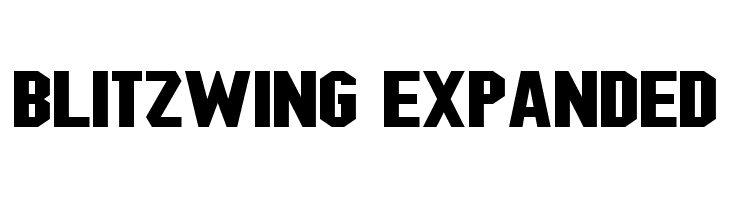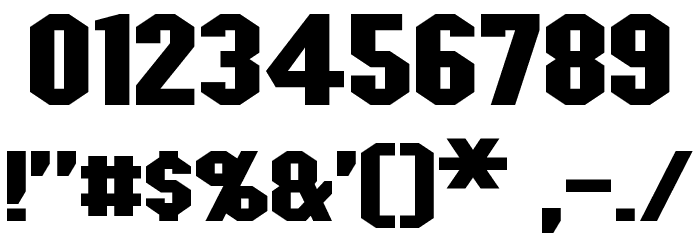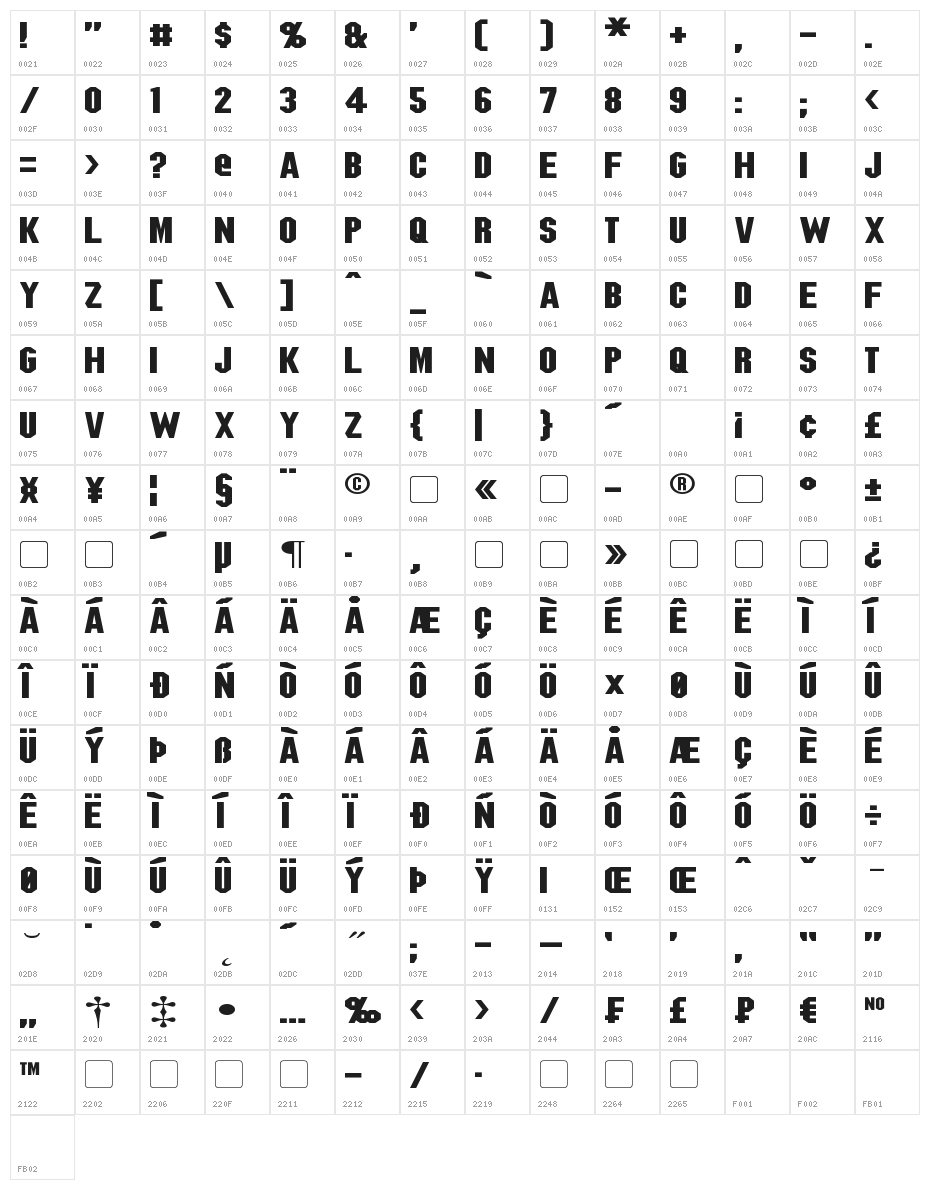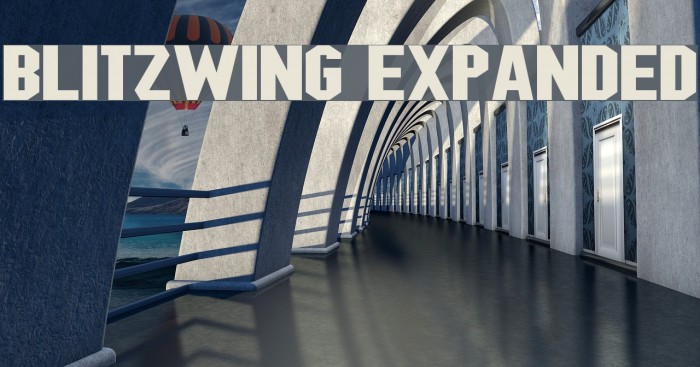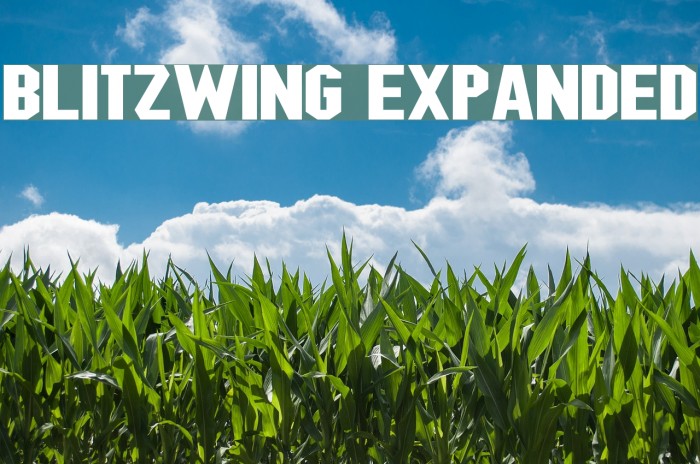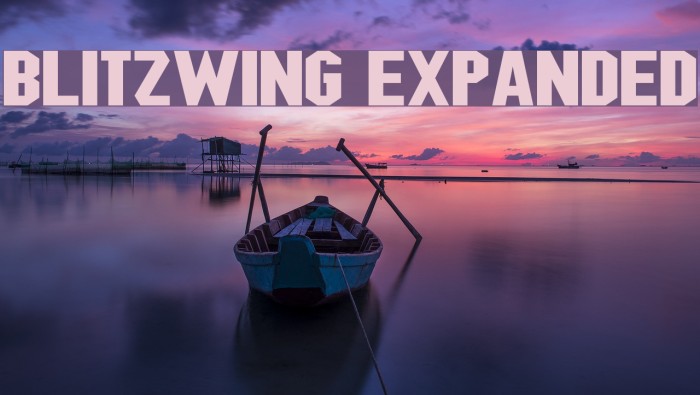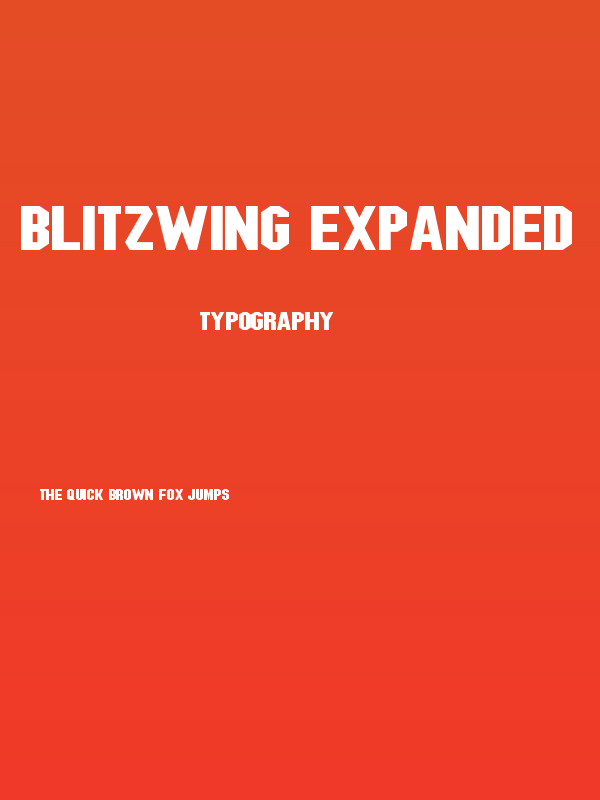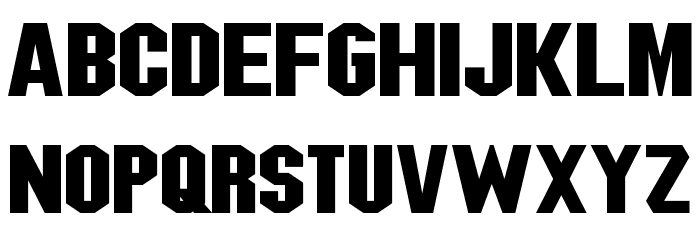
Blitzwing Expanded Font
Blitzwing Expanded Description
This font features a bold, geometric design with strong, angular lines and a distinct, industrial feel. The characters are uniformly wide, giving it a robust and commanding presence. The uppercase letters are particularly striking, with sharp edges and a solid structure that conveys strength and stability. The numerals and special characters maintain this bold aesthetic, ensuring consistency across all glyphs. The font's expanded width allows for excellent readability, making it suitable for impactful headlines and attention-grabbing designs. Its modern, assertive style is perfect for projects that require a strong visual statement.
| Proposed Projects | Ideal for branding, posters, headlines, and any design requiring a strong, impactful typeface. |